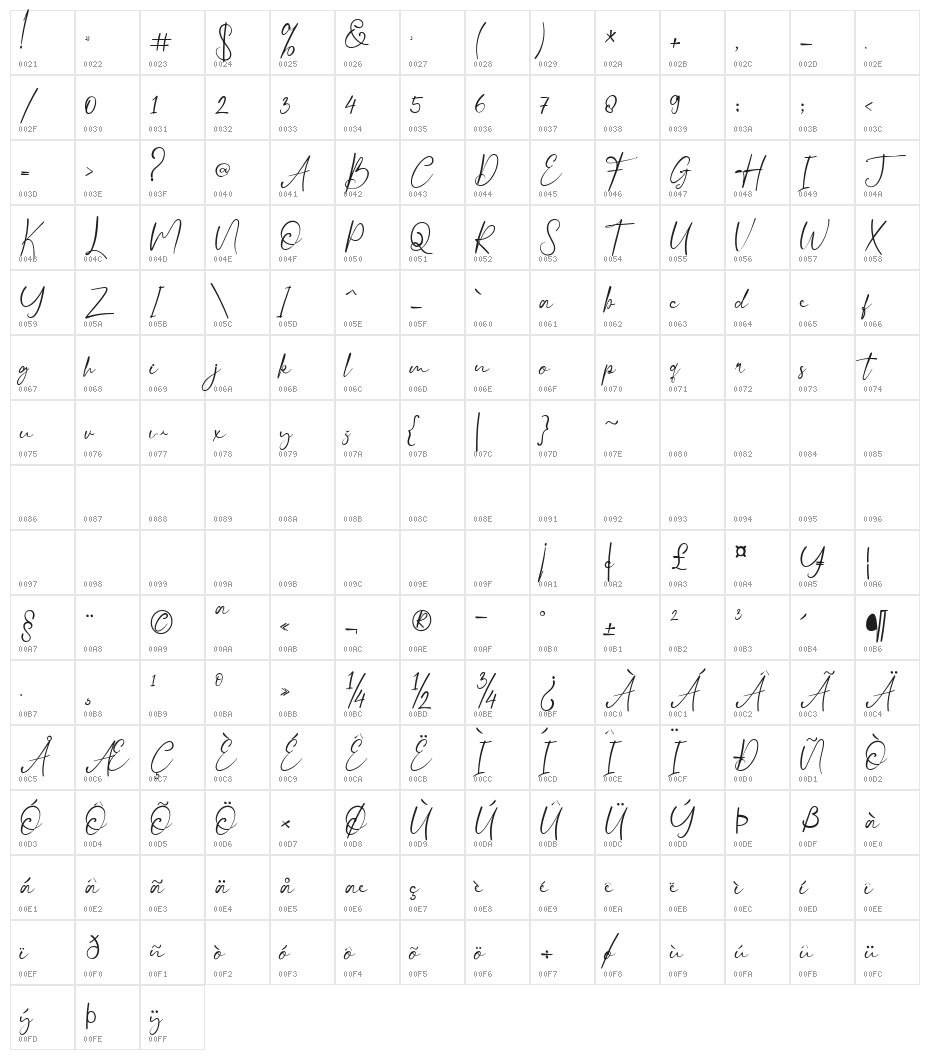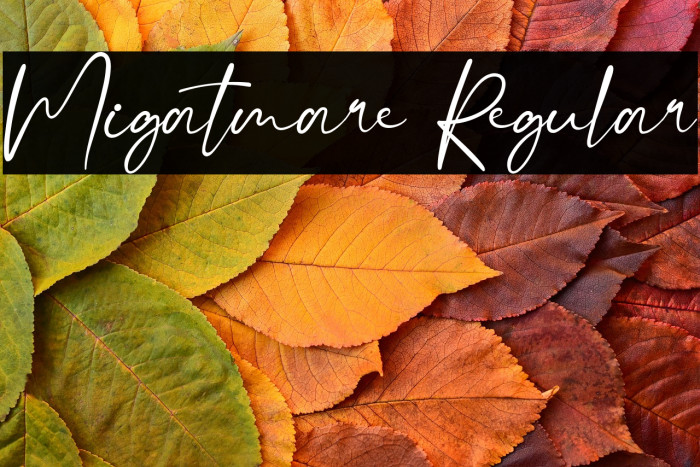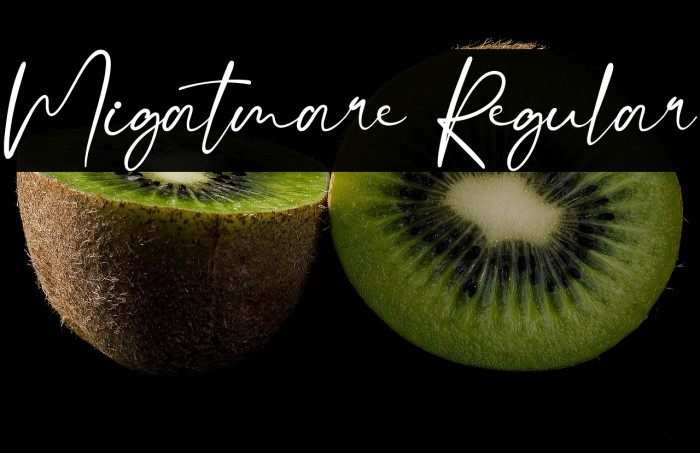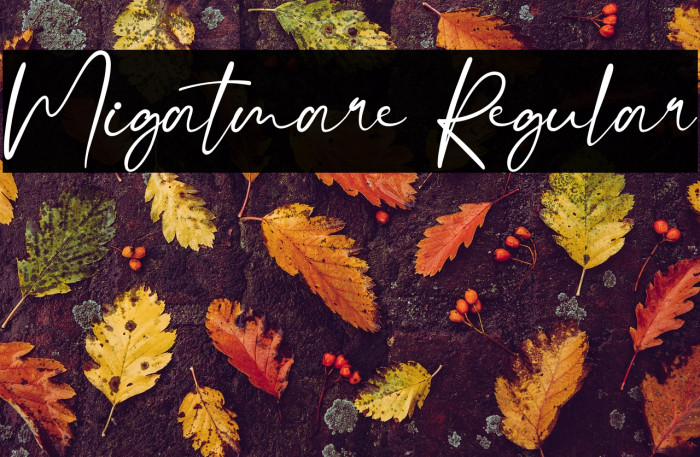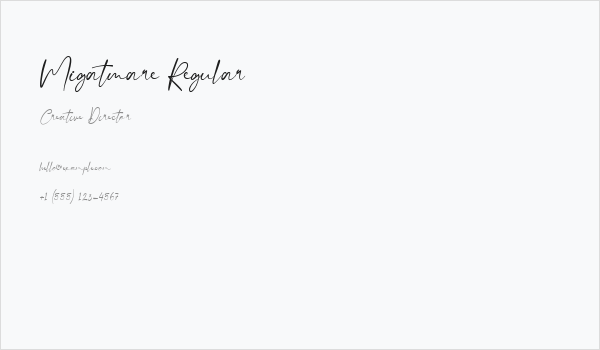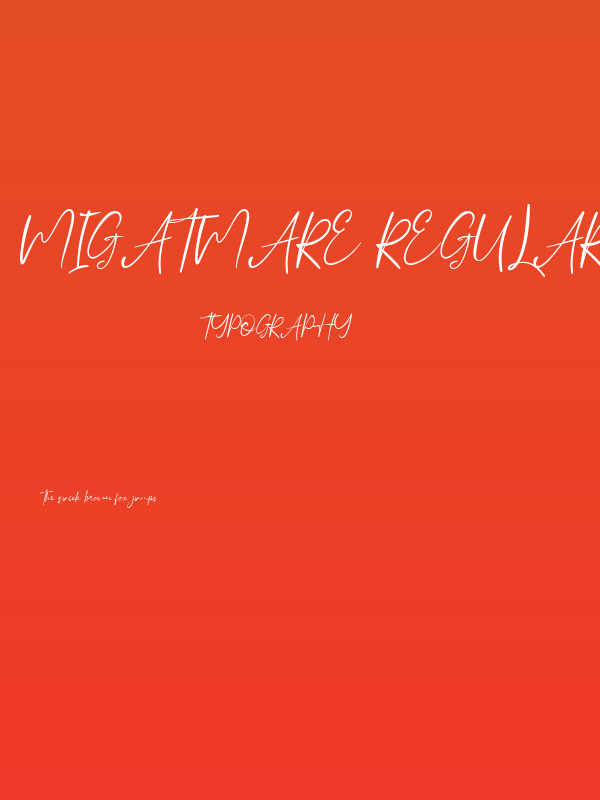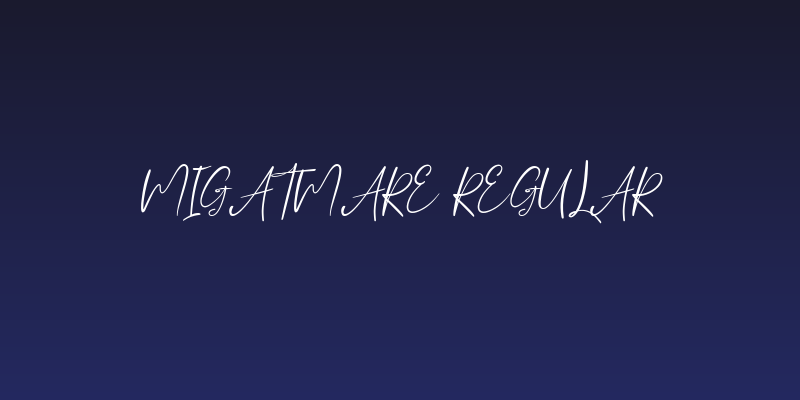
Migatmare Regular Font
Migatmare Regular Description
This font features an elegant and flowing script style, characterized by its smooth, cursive strokes and a sense of fluidity. The uppercase letters are tall and slender, with a slight slant that adds a dynamic feel. The lowercase letters maintain a consistent flow, with some characters featuring loops and swashes that enhance the overall aesthetic. Numbers are styled to match the script's elegance, while special characters are integrated seamlessly, maintaining the font's cohesive look. The font's design is both sophisticated and approachable, making it suitable for a variety of creative applications.
| Overall Style | Elegant |
| Use Case | Logos, Invitations, Personal stationery |
| Proposed Projects | Ideal for wedding invitations, elegant branding, greeting cards, and personal stationery. |